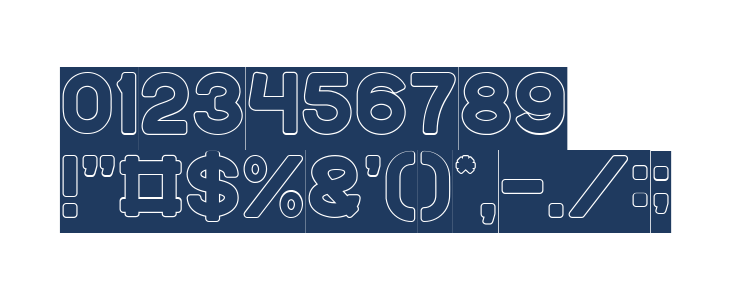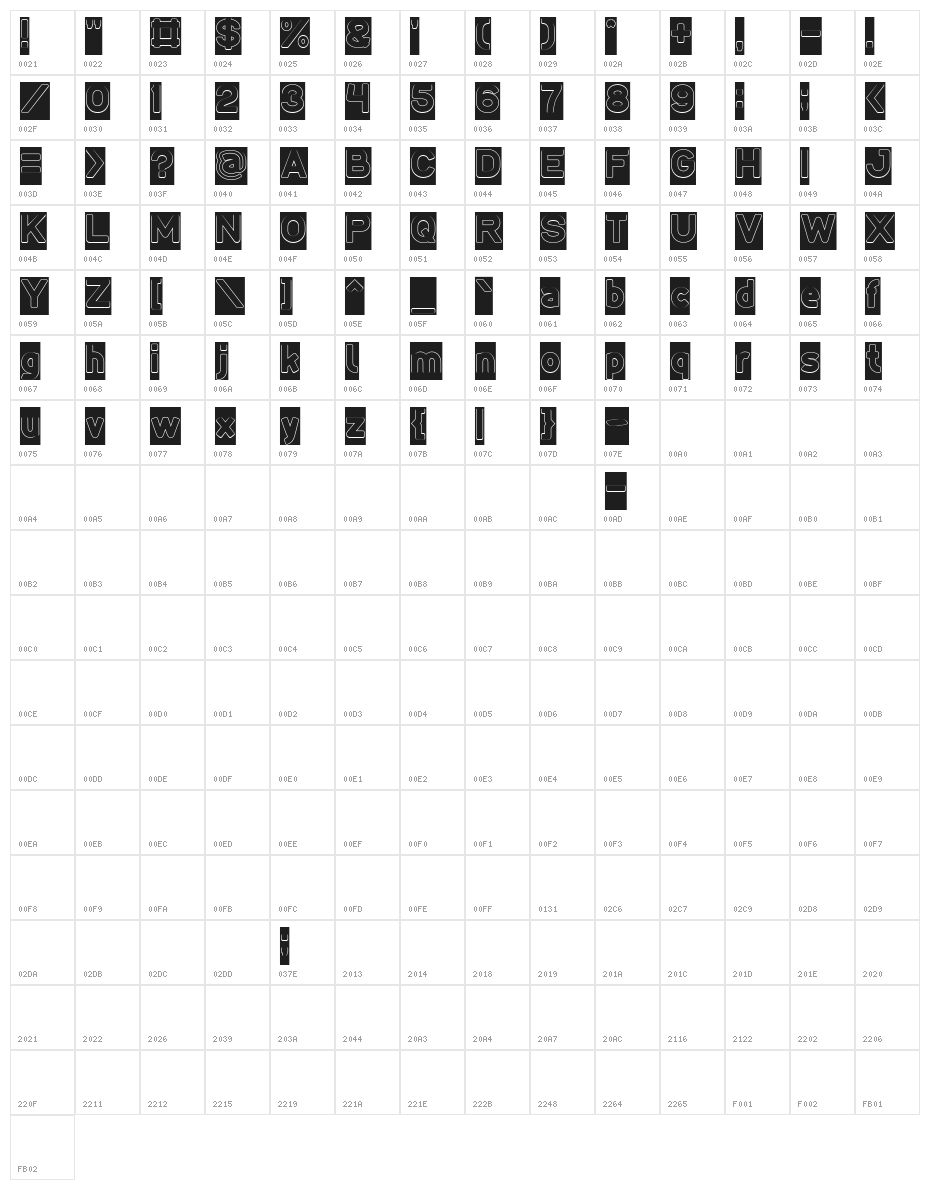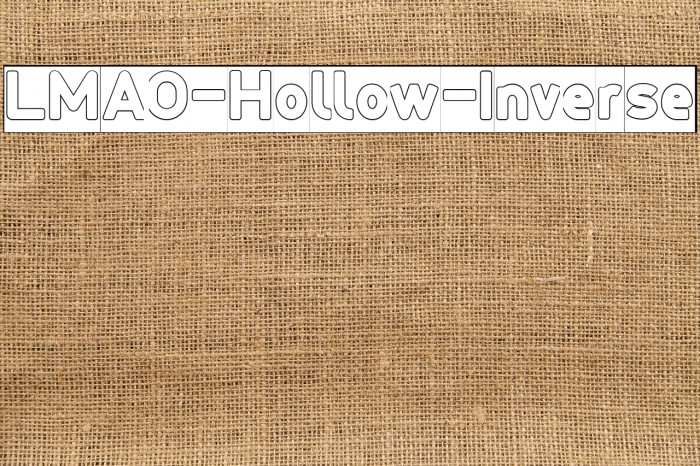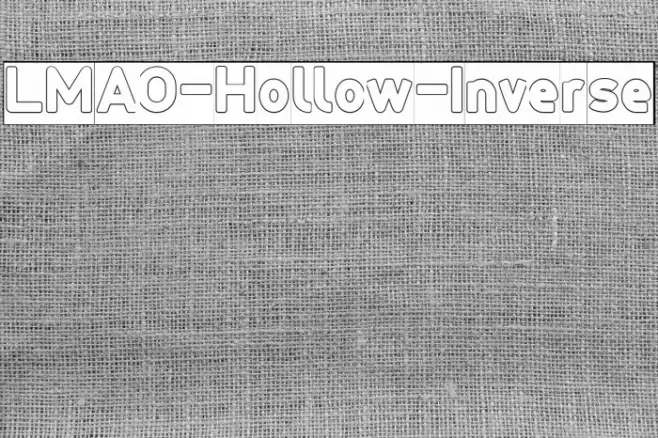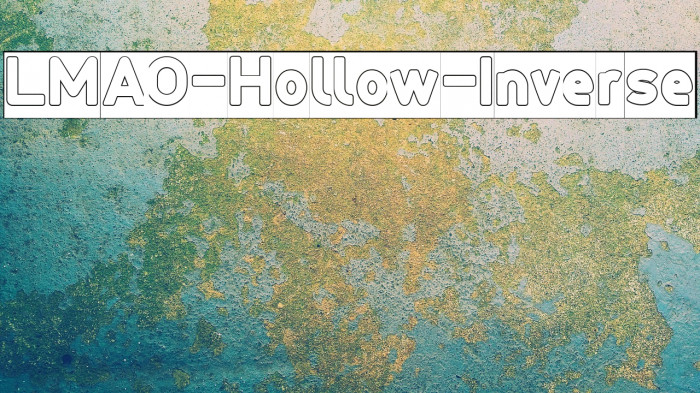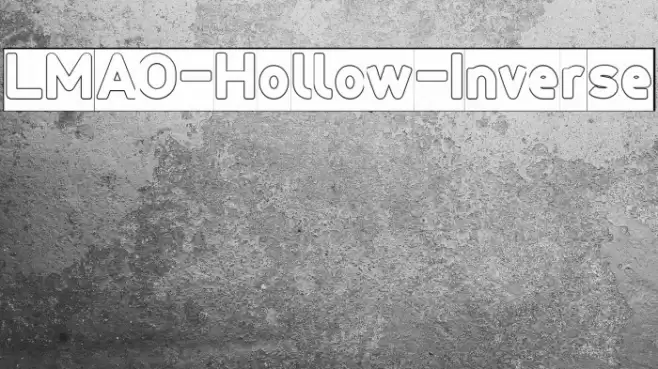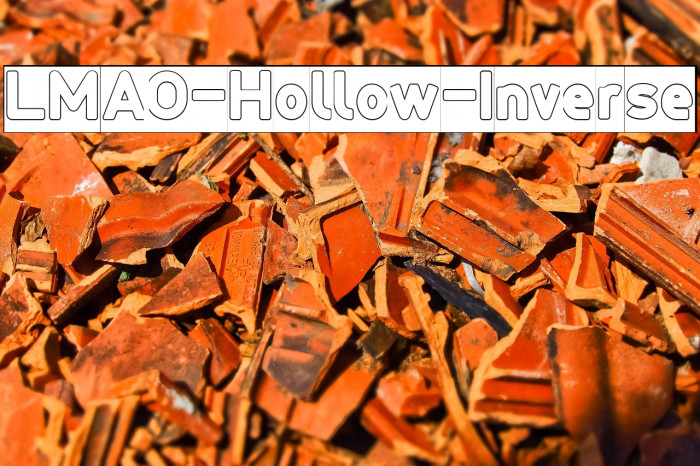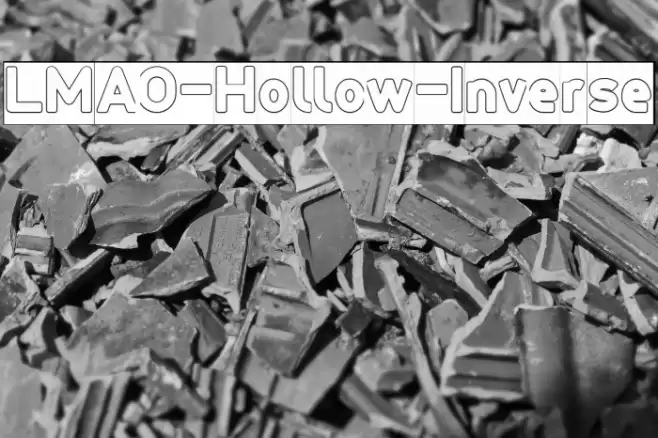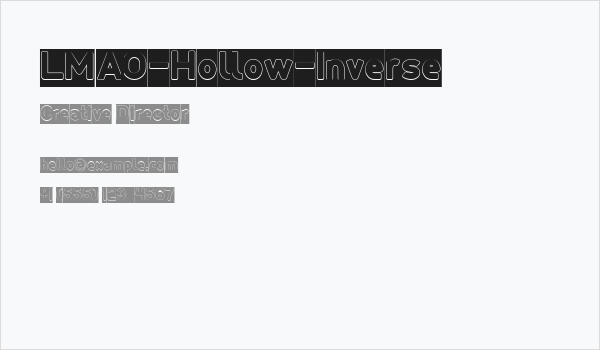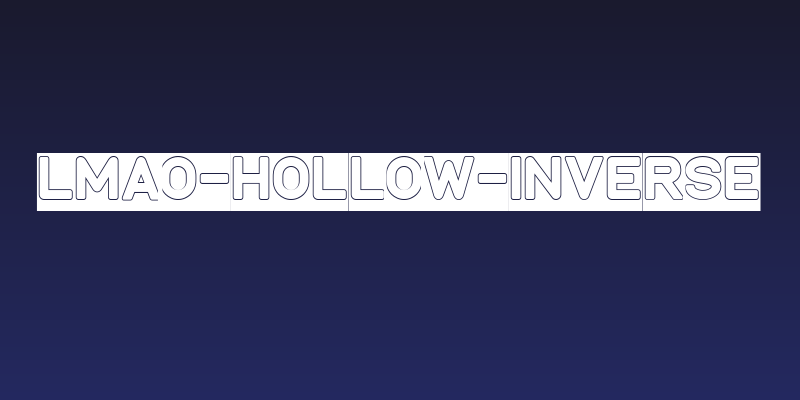
LMAO-Hollow-Inverse Font
LMAO-Hollow-Inverse Description
This font features a bold, hollow design with a modern and playful aesthetic. Each character is outlined, creating a striking visual effect that stands out against dark backgrounds. The uppercase and lowercase letters maintain a consistent style, with rounded edges and uniform line thickness. The numerals and special characters follow the same design principles, ensuring a cohesive look across all elements. This font's unique hollow style makes it ideal for eye-catching designs where the text needs to be both readable and visually engaging.